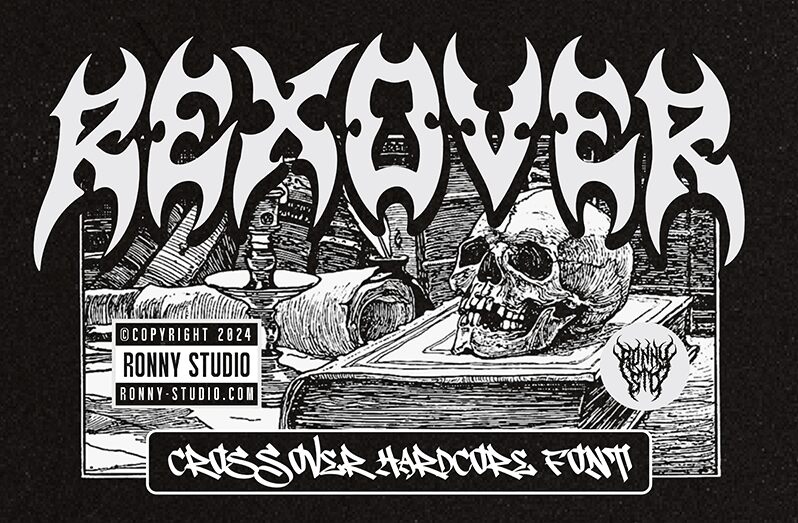
Rexover DEMO
Rexover font by Ronny Studio is a gothic calligraphy font inspired by a heavy metal aesthetic. It presents the perfect balance of medieval and modern with ornamented letters, aggressive details, and faint tribal influences. The clear thick characters easily become the center of attention wherever placed thanks to their eye-catching original designs.
Use this free Gothic font in poster designs for movie promotions or night club events. Try it for album cover design projects or logotypes. Power sports like MMA are another great area where Rexover can show all its potential. Celebrate its exquisite features in book covers, apparel typography, website headers, game titles, packaging design, magazines titles/artwork/covers back covers where allowed and more!